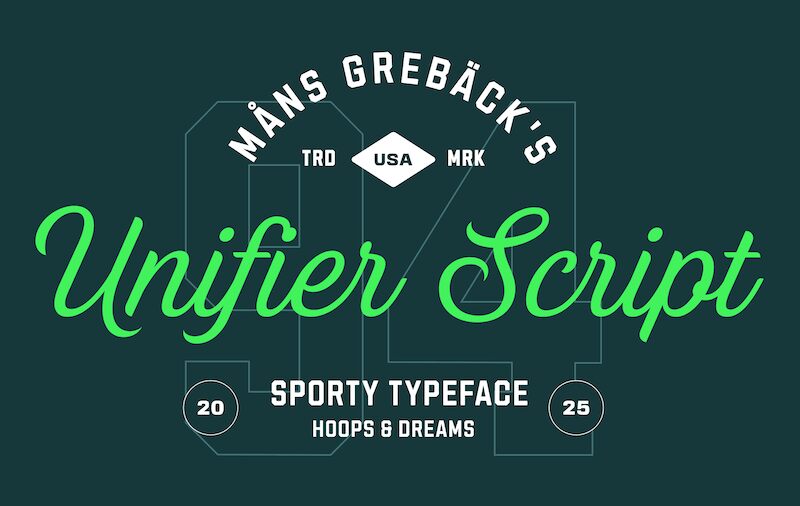
Unifier Script font by Mans Greback is a free calligraphy typeface that’s tailor-made for makers who need script lettering that actually cuts clean. Its smooth, rounded curves and consistent stroke width keep every word legible, even when scaled down onto vinyl decals or intricate laser-cut signs. The connected cursive flows in a graceful line, giving that handwritten feel without the fussy, fragile details that usually break or snag in craft machines.
Using Unifier Script, you can move confidently from Cricut projects to laser-cut wood signs, mugs, tote bags, greeting cards, packaging, and branding for small businesses. The rhythm of the letters feels steady and calm, so names and short phrases read clearly at a glance. This free font pairs nicely with a simple all-caps sans serif for taglines-set Unifier Script larger for names or key words, and let the secondary text stay small and quiet beneath it.